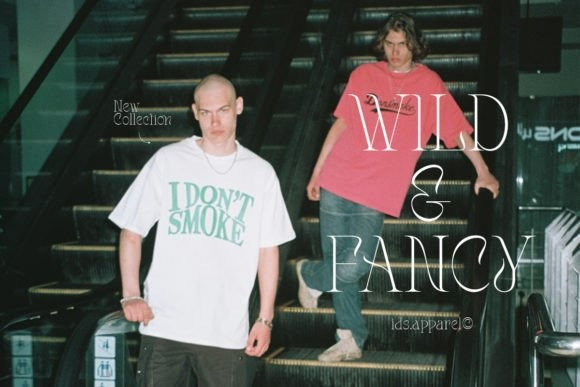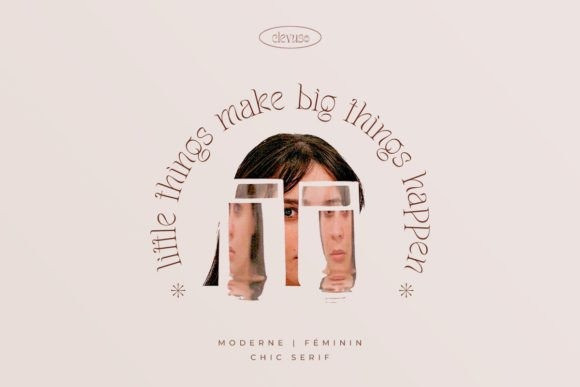
Meler Font
Meler Font a modern ligature serif font that draws inspiration from the iconic style of the era. Its regular and edgy lines make it the perfect choice for creating retro-inspired logos, fashion brand, magazine, clothes, lettering, quotes, and other design materials. With Meler, you can effortlessly infuse your work with a touch of nostalgia and capture the essence of the 90s in your designs.